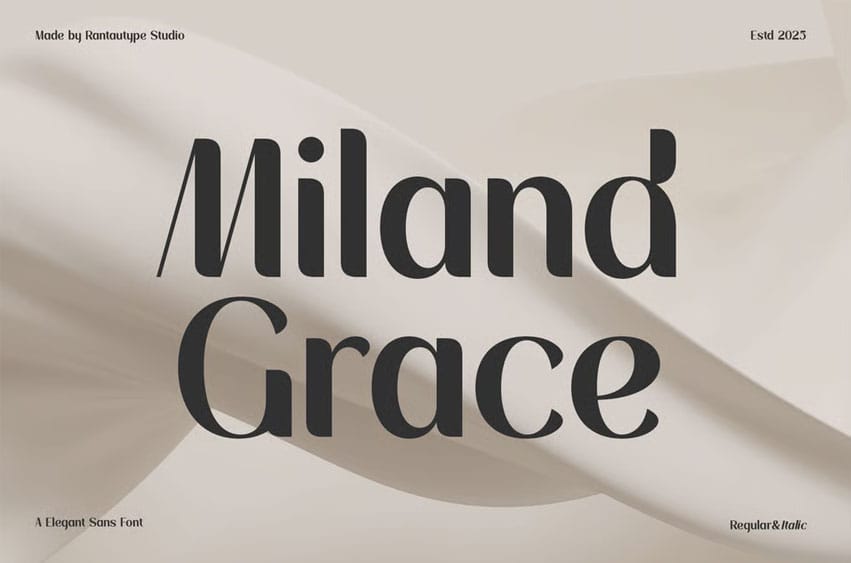
Miland Grace Font combines modern minimalism with refined sophistication. Miland Grace is a perfect choice for any creative endeavor, chic lifestyle design such as logotype, advertisements, watermark on photography, stationery, branding project, display and magazine, invitation, corporate brand, product design, label, business project, and many other projects with a modern touch.